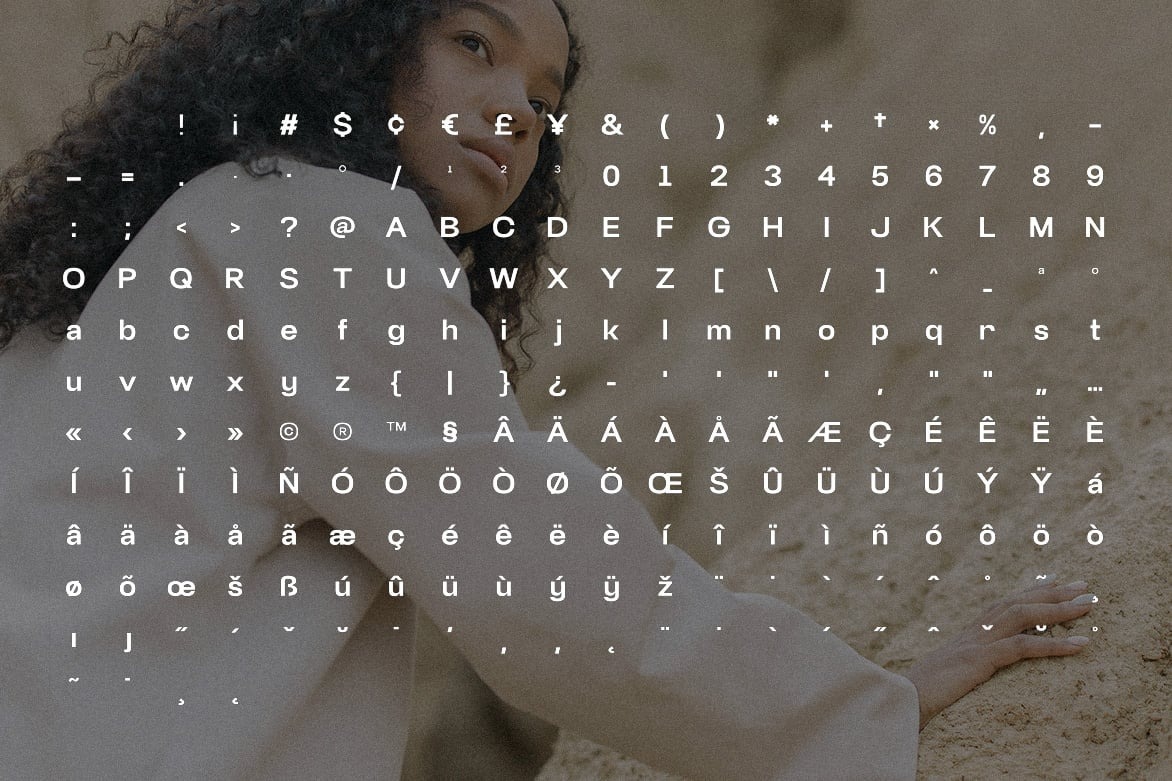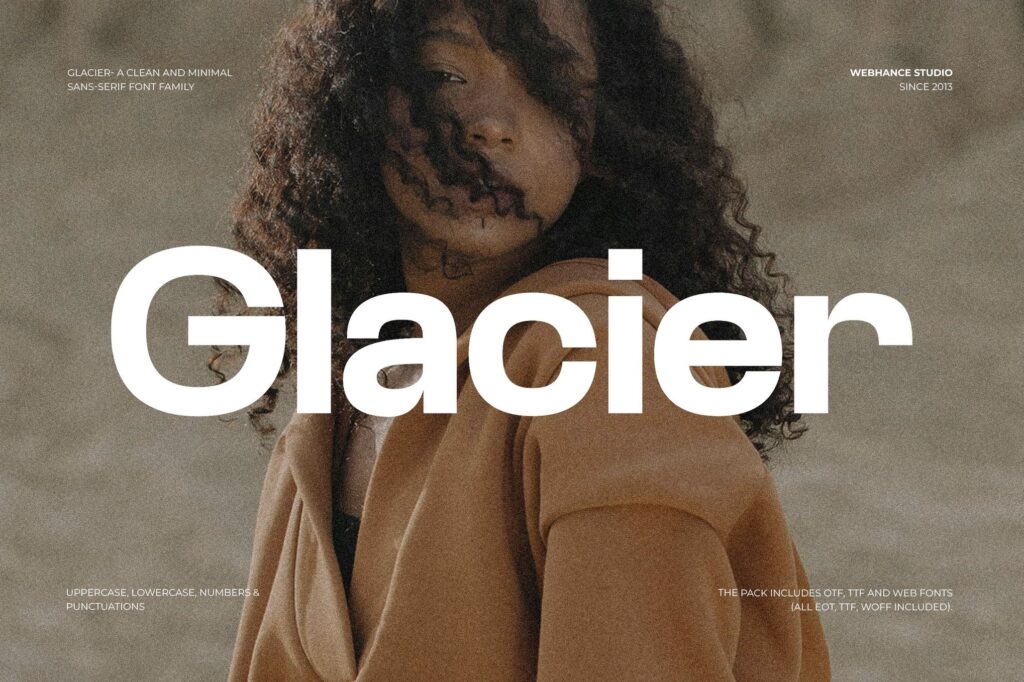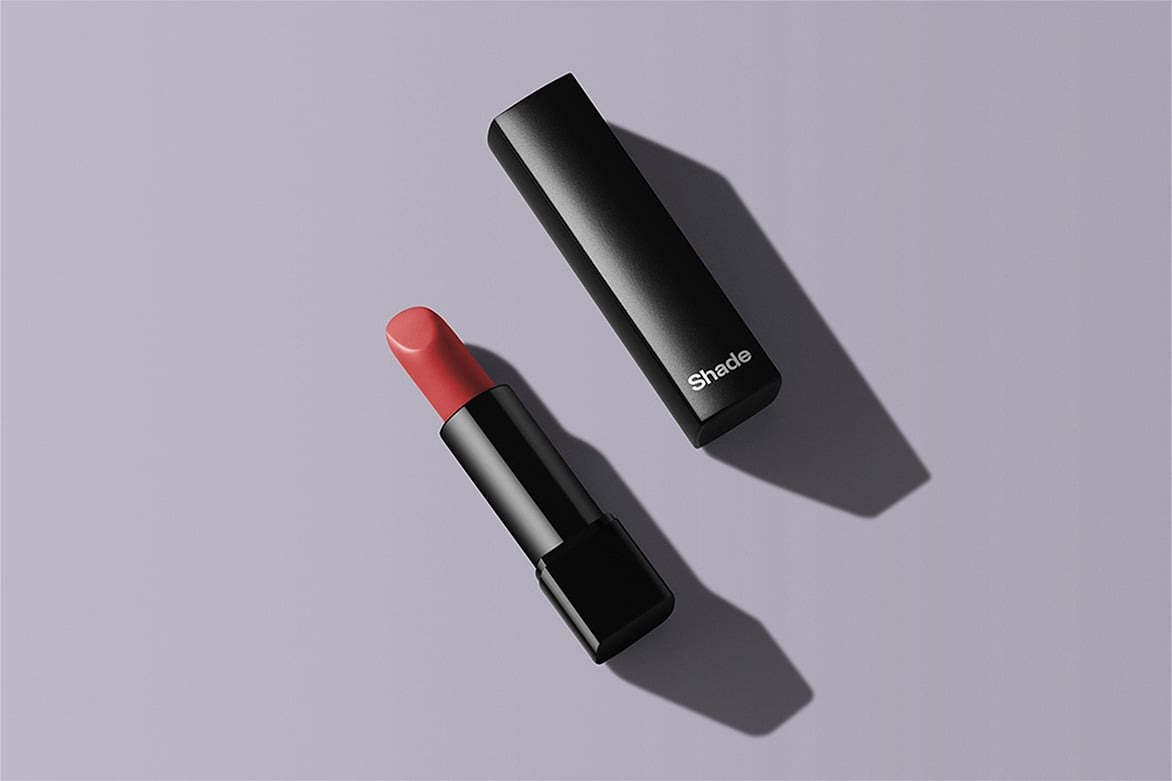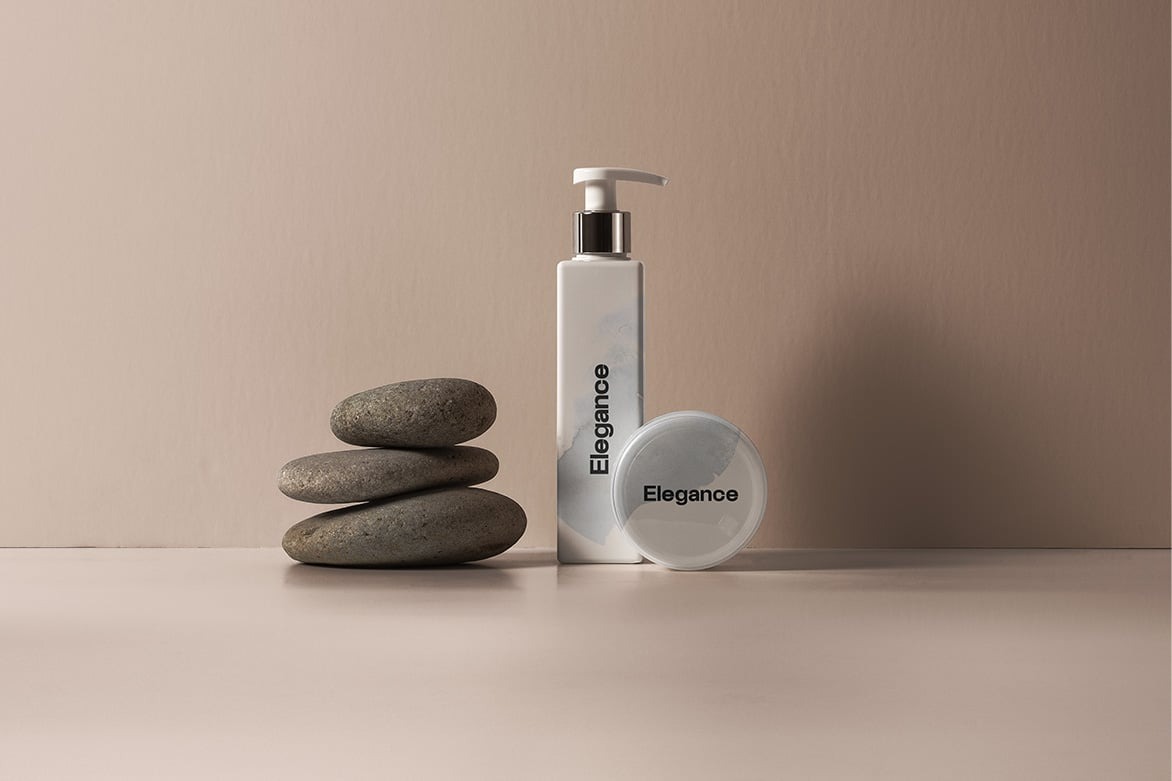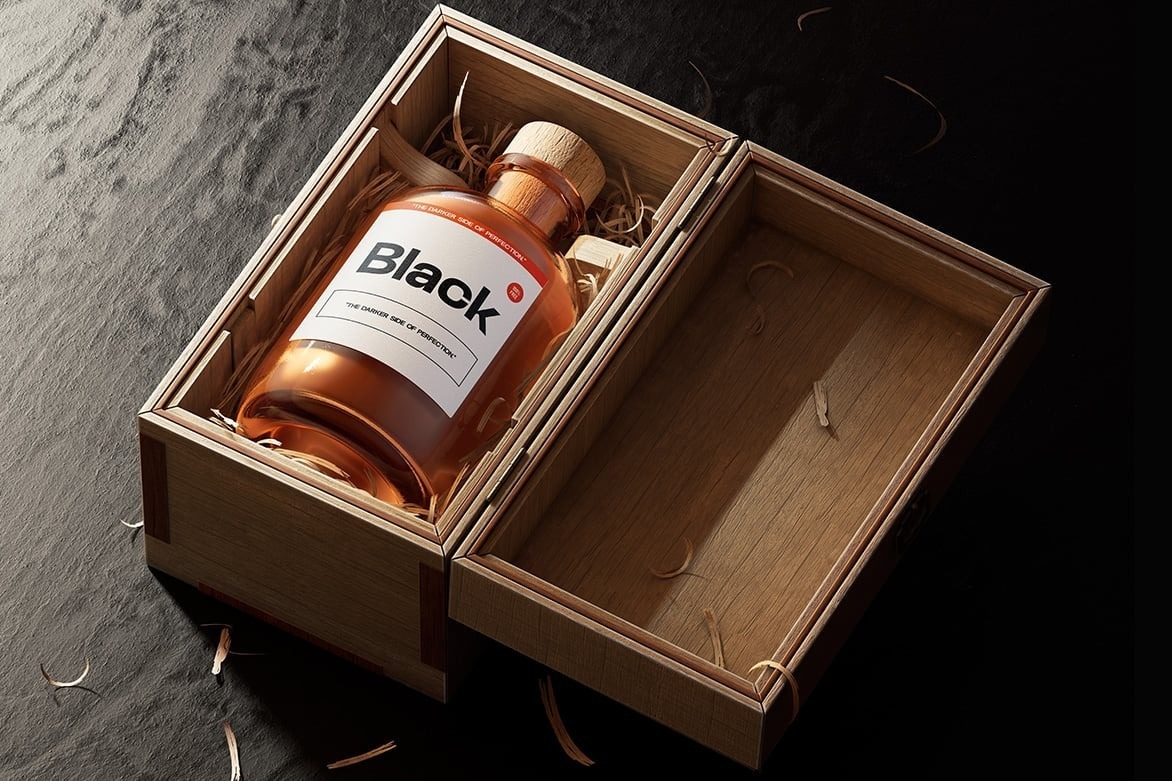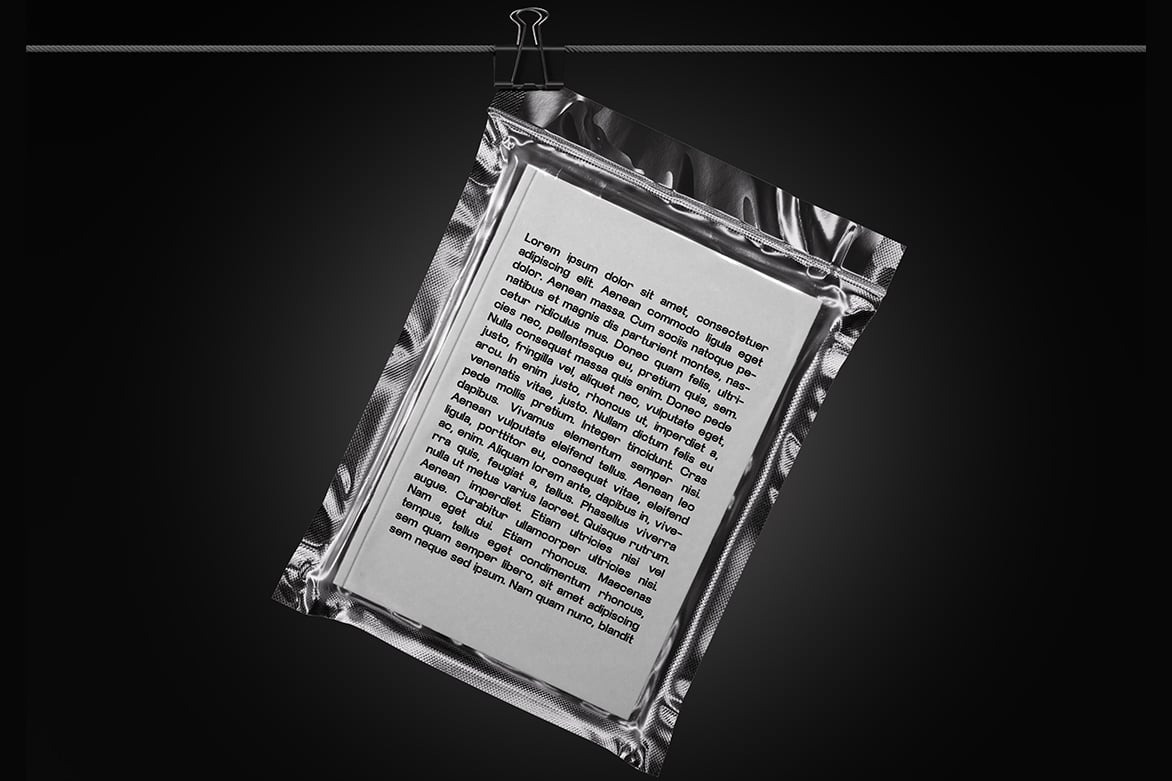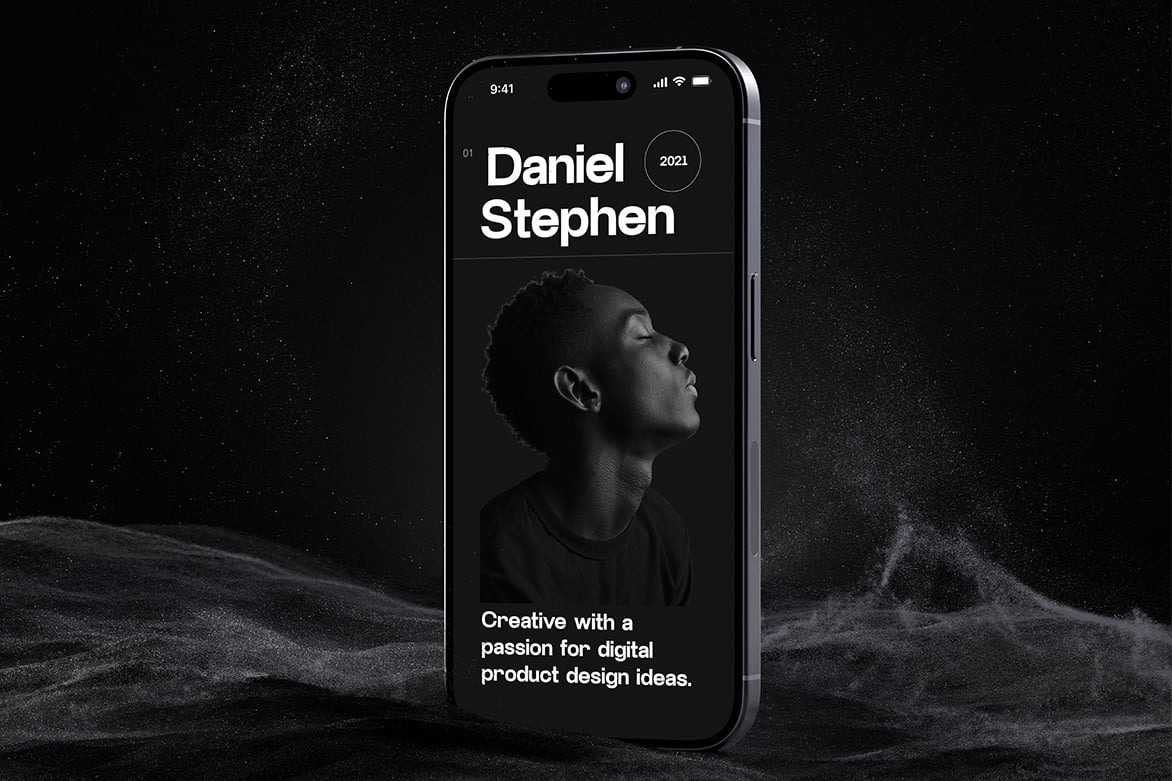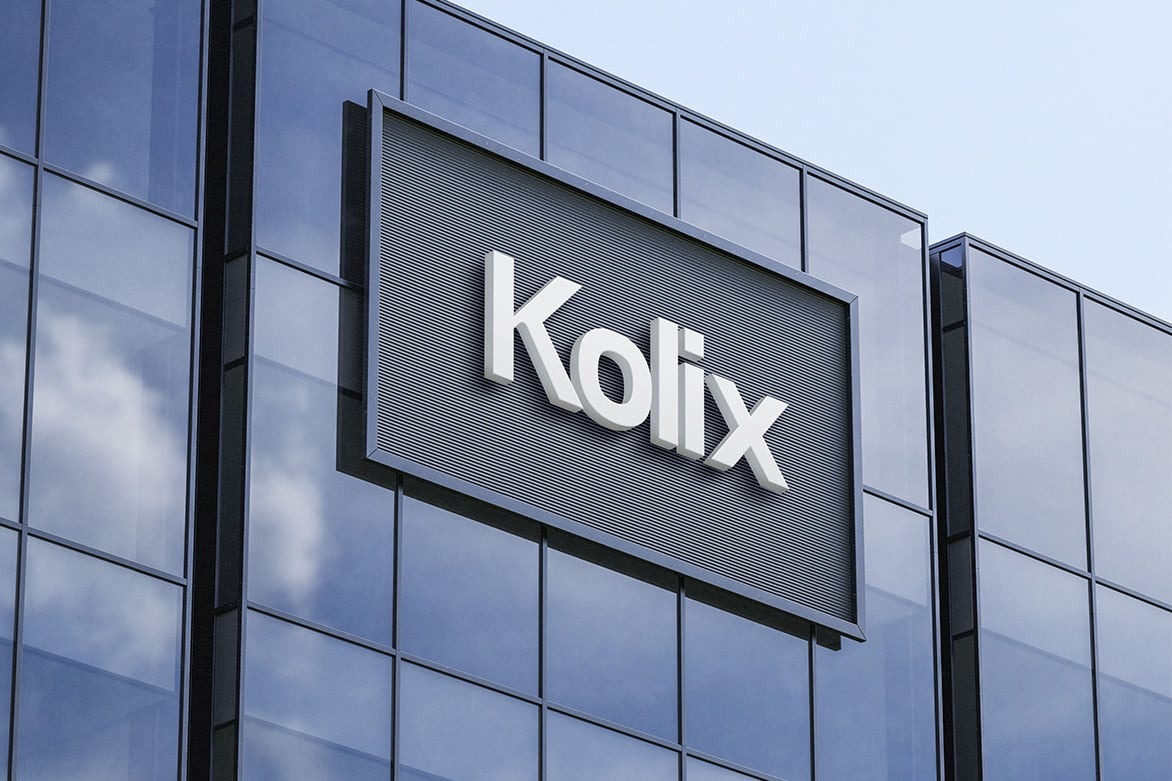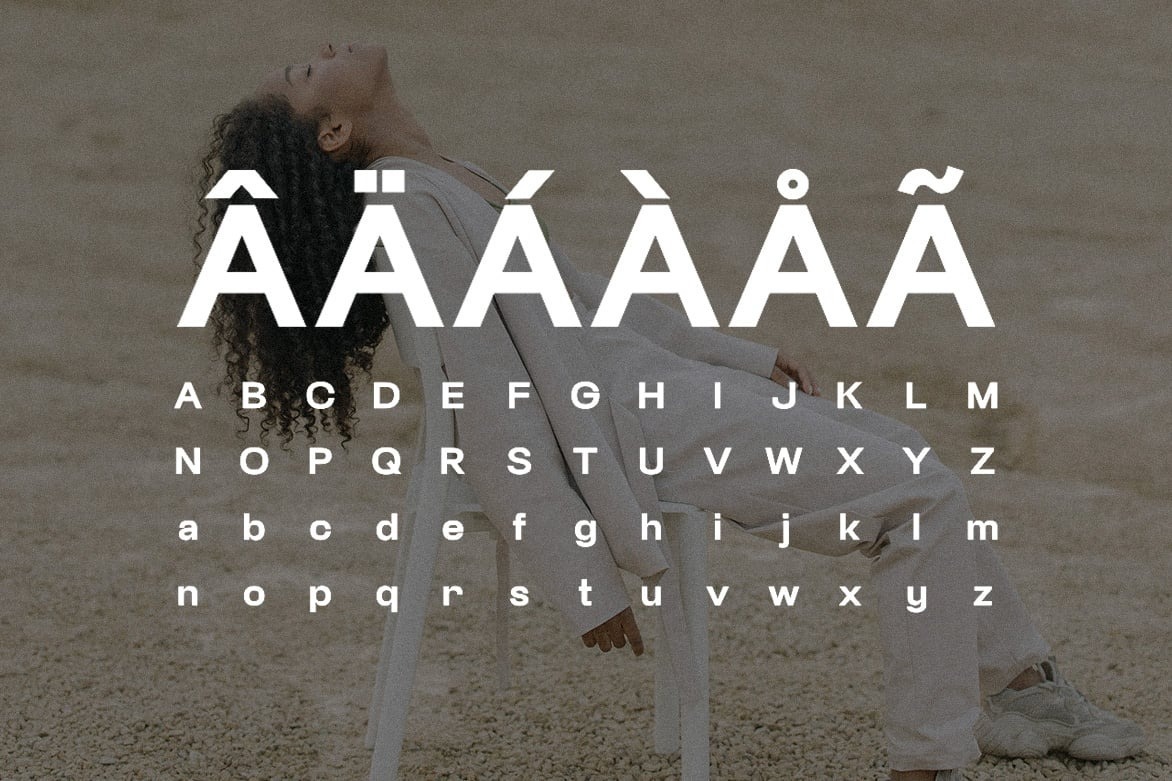
Glacier Sans is a sleek and adaptable sans-serif typeface, created with a focus on simplicity and style. Currently available in a single weight, with additional styles coming soon, it’s the ideal choice for any design project that needs a polished and contemporary look. Glacier Sans provides excellent readability and a sophisticated appearance, adding a touch of elegance to your designs.